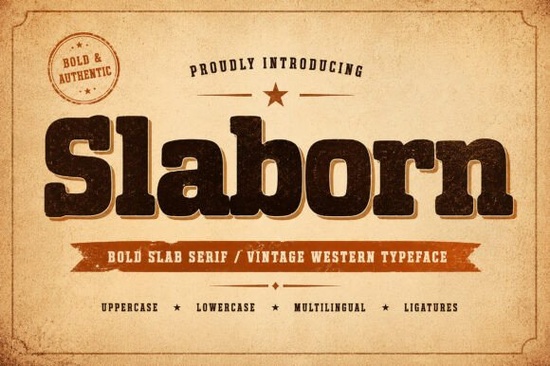
If you're searching for a typeface that carries the bold, rugged spirit of old-west signage and vintage Americana, the Slaborn Font is worth a close look. It's a heavy slab serif designed for projects that need strength and character think whiskey labels, coffee packaging, and rustic logo work. Built with thick strokes and strong serifs, it brings a confident, hand-crafted feel to headlines and branding compositions alike.
What Makes Slaborn Stand Out From Other Slab Serif Fonts?
There are plenty of slab serif fonts out there, but not all of them nail the balance between boldness and readability. Slaborn does. Its letterforms are designed with heavy, confident strokes that hold up well at large sizes which is exactly what you want for signage, posters, and packaging. At the same time, the curves have a slightly rugged quality that keeps the font from looking too mechanical or sterile.
The vintage-inspired details, like ligatures and alternate characters, give you room to customize your typography without needing extra design software. It also supports PUA encoding, so you can access all special characters even in programs that don't natively support OpenType features.
Compared to other popular options like Slaborn, fonts in this category often lean either too decorative or too plain. Slaborn sits in a sweet spot where it feels authentic without sacrificing versatility.
What Projects Is This Font Best Suited For?
Slaborn was clearly designed with real-world commercial use in mind. Here's where it tends to work best:
- Whiskey and spirits labels the heavy slab construction pairs naturally with dark, moody color palettes and aged textures
- BBQ and craft food packaging it gives that hand-branded, smokehouse look without any extra effort
- Coffee shop branding works great on menus, cup sleeves, and signage
- Western-themed posters and event flyers the retro Americana aesthetic fits right in
- Beer can designs and brewery logos strong enough to stand out on a small label
- Apparel and merchandise t-shirts, hats, and tote bags with a vintage feel
- Editorial headlines magazine layouts and blog graphics that need a bold statement
If you run a print-on-demand shop or sell designs on platforms like Etsy, having a reliable vintage slab serif in your toolkit is a smart move. Fonts like this are trending in niches like rustic wedding decor, western lifestyle products, and craft brewery branding.
What Characters and Features Are Included?
Slaborn comes with a solid set of glyphs that cover most design needs:
- Uppercase and lowercase letters
- Numbers and punctuation marks
- Ligatures for smoother letter combinations
- Alternate characters for added variety
- PUA-encoded access for all special glyphs
Is Slaborn a Good Fit for Small Businesses?
Absolutely. If you're a small business owner working on your own branding say you're launching a hot sauce line, opening a barbershop, or designing packaging for a small-batch product Slaborn gives you that professional, heritage-quality look without hiring a custom lettering artist.
It's also a solid choice for creative hobbyists and crafters who want to make invitations, wall art, or party decorations with a rustic or western theme. The font works well in both digital and print formats, which matters if you're designing for Cricut or Silhouette machines too.
How to Get the Most Out of This Font
A few quick tips for working with Slaborn effectively:
- Use it at larger sizes it was built for headlines and branding, not body text
- Pair it with a simple sans-serif for contrast in layouts that need both a header and supporting text
- Experiment with the alternates and ligatures small changes in letter combinations can make a big difference in how polished your design looks
- Layer it with textures distressed overlays, grain effects, and worn paper backgrounds complement the vintage personality of this font
Slaborn is a practical, well-crafted typeface for anyone working in vintage or rustic design. If that's your lane, it's a solid addition to your font library.